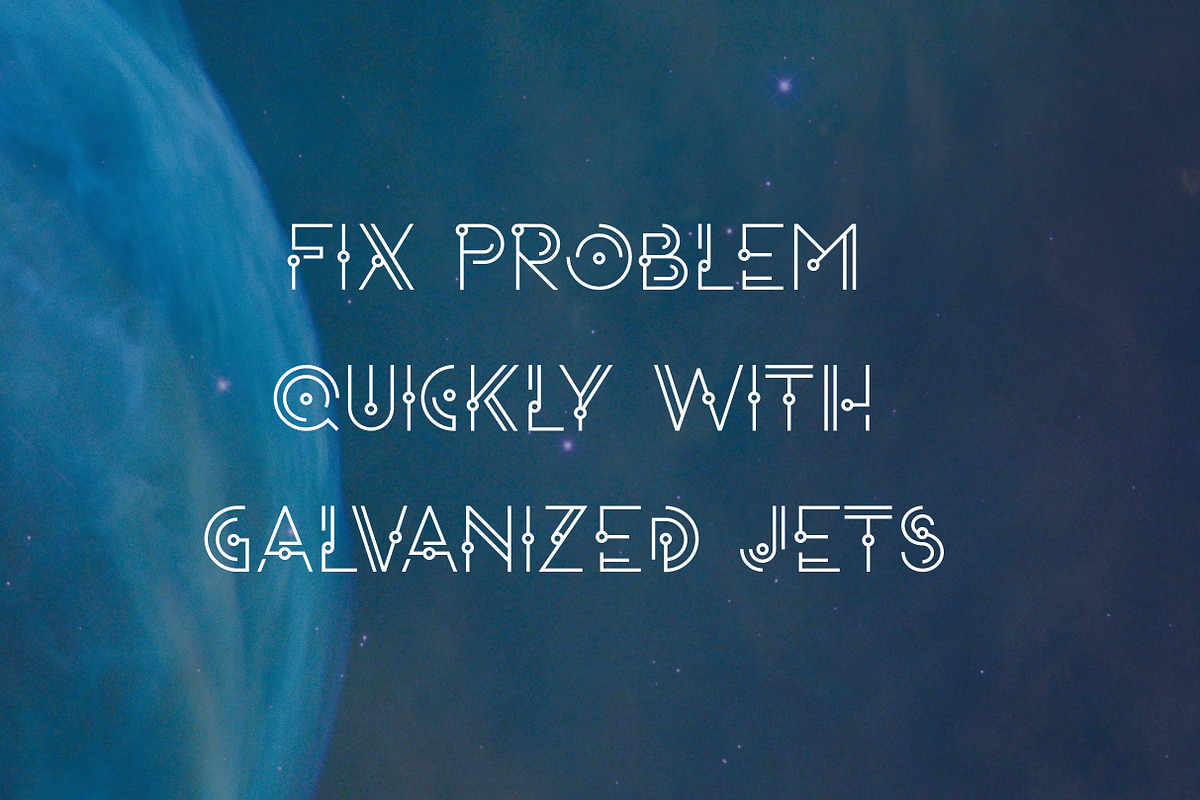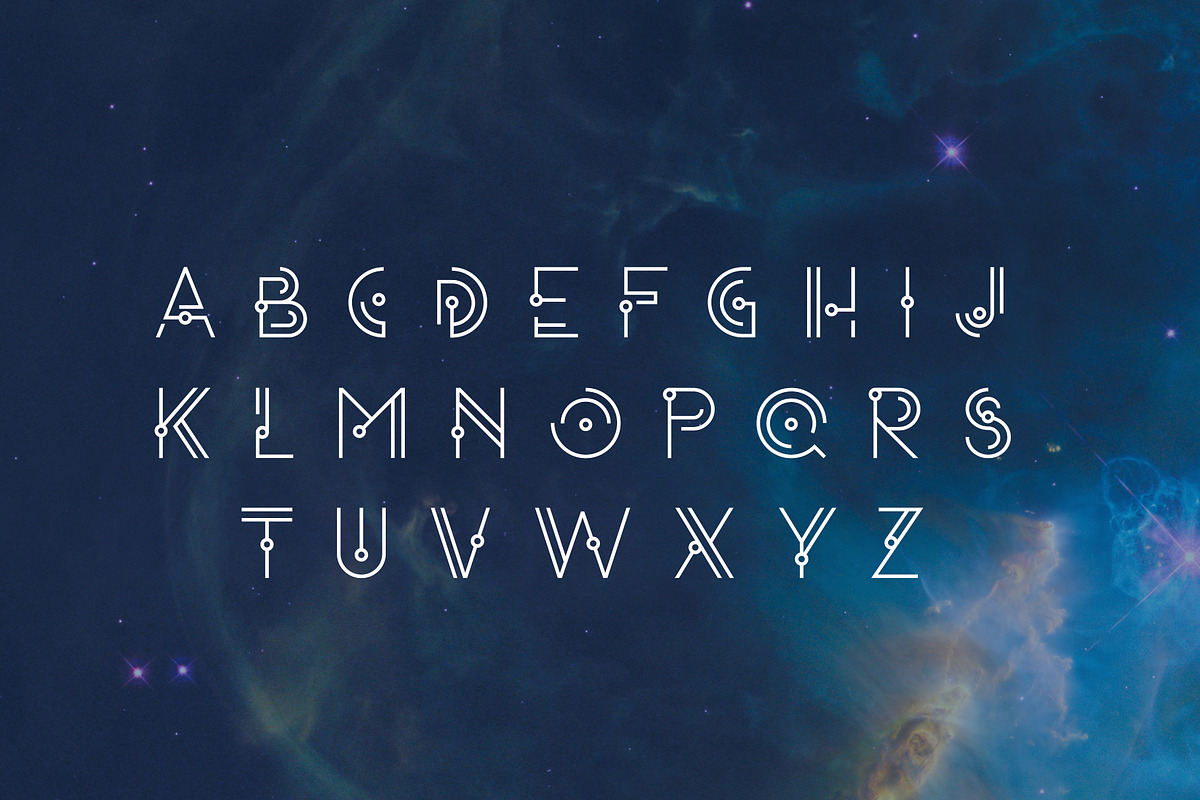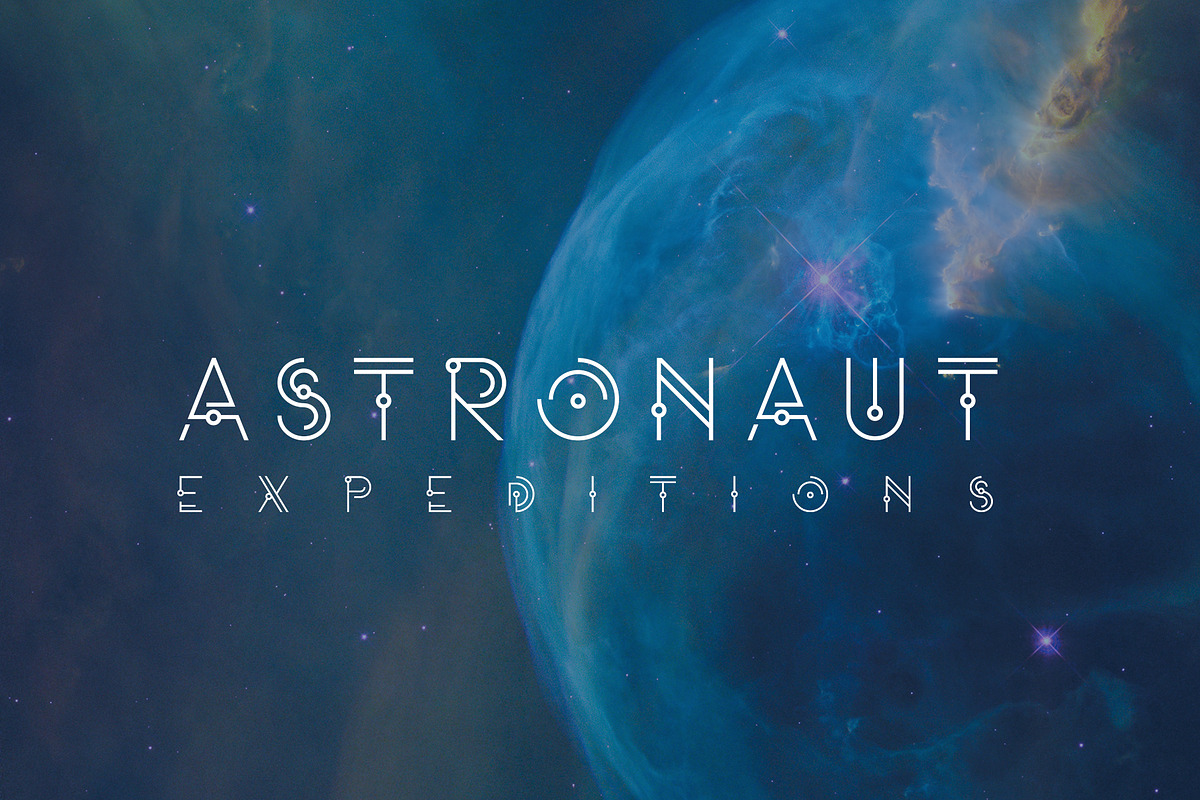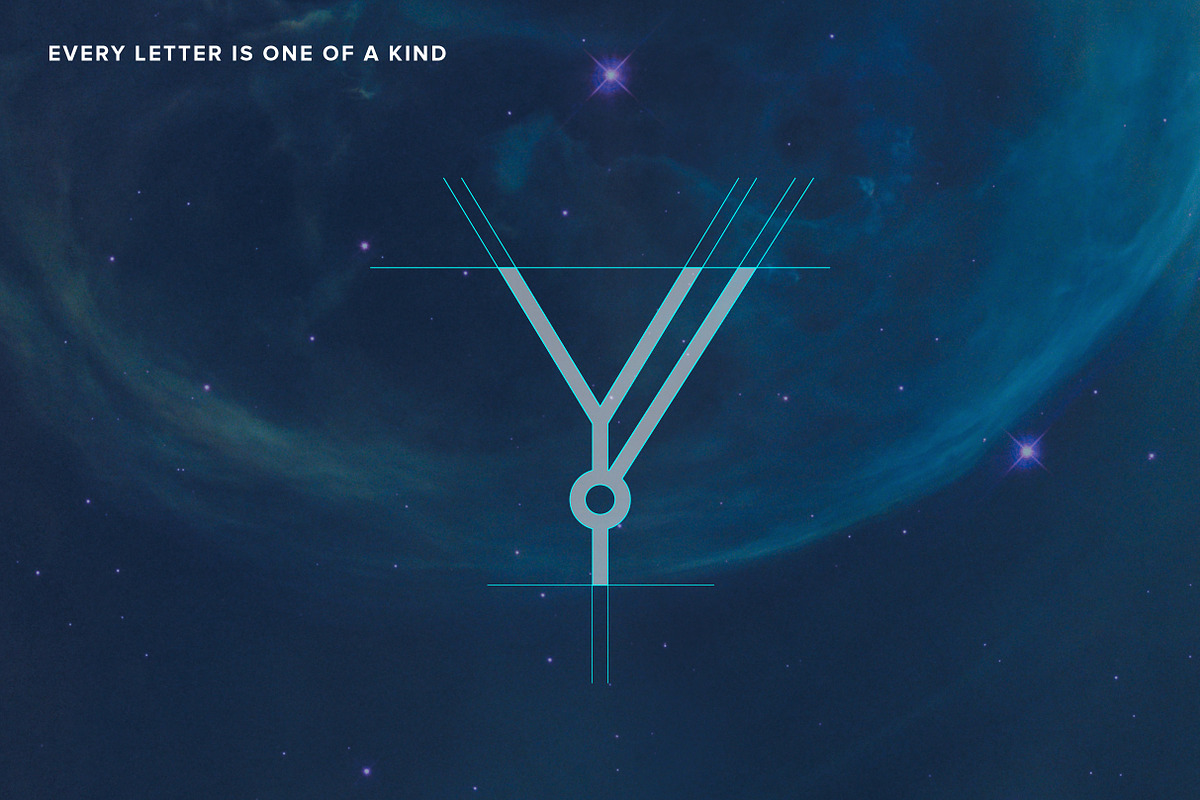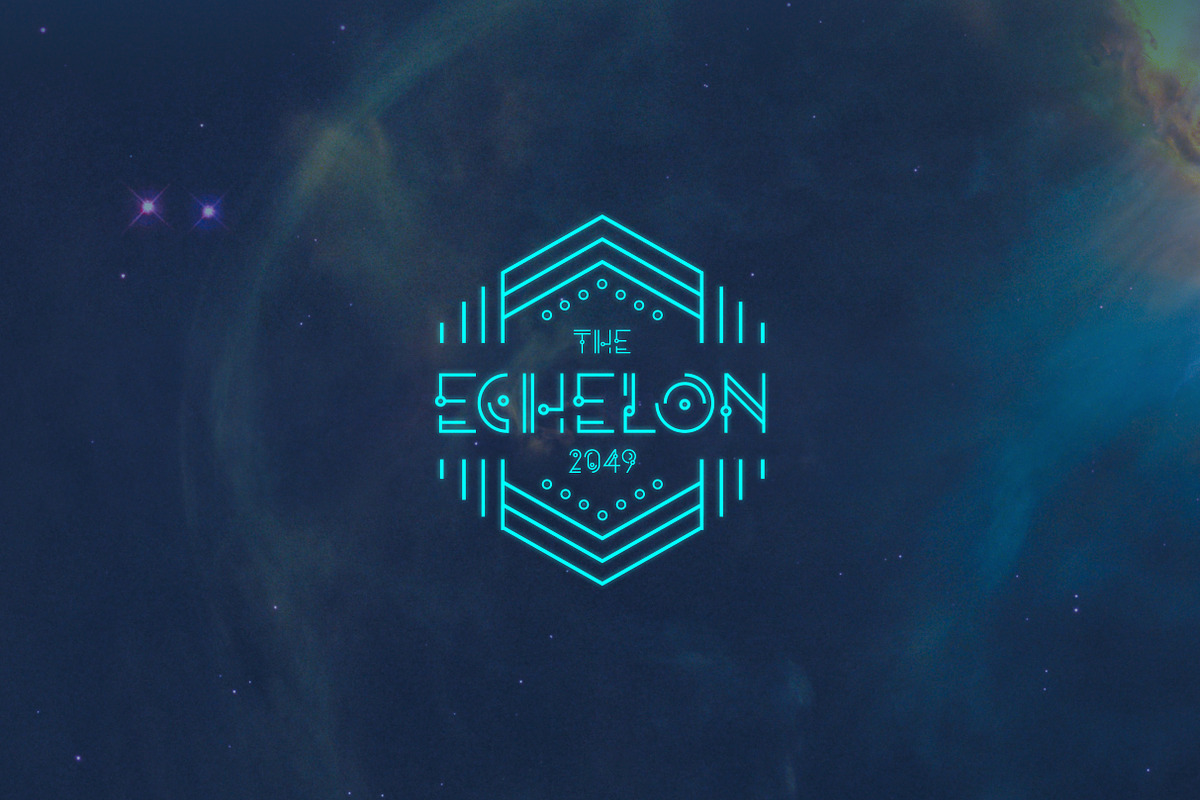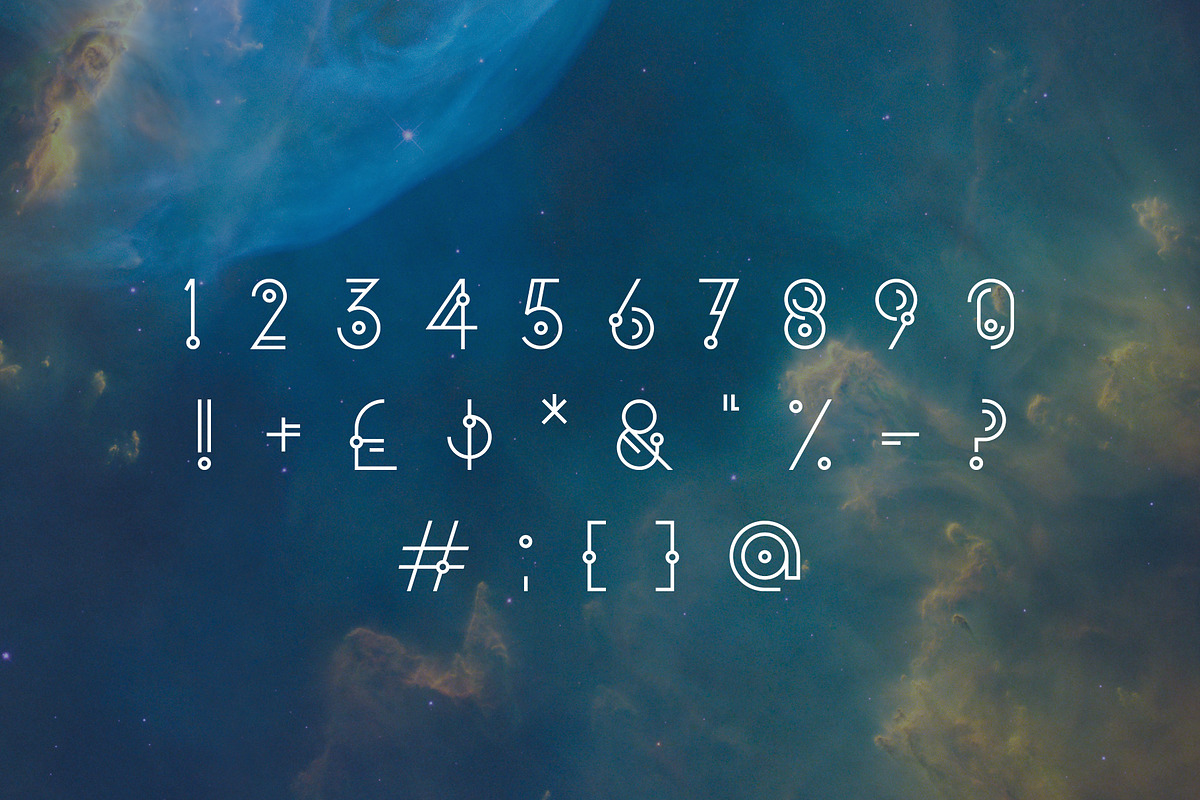
Flux | Display Font
Flux is a modernized geometric typeface inspired by the cosmos. It has a strong decorative presence, with a solid, geometric accent. Its unique shapes and proportion gives the font a dynamic, galactic aesthetic. Ideal for apps, web, headlines, identity, short sentences and branding.
Flux is most suitable as a decorative display font.